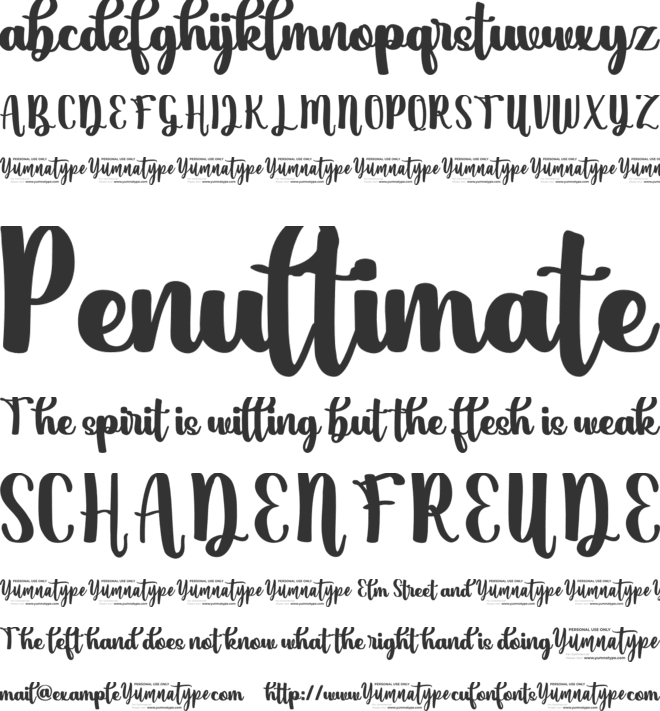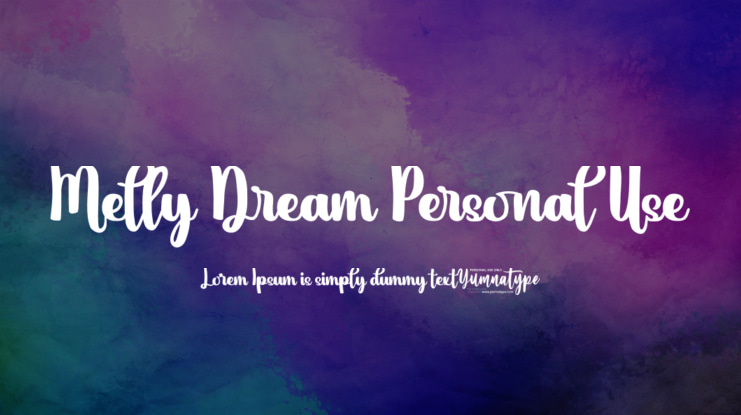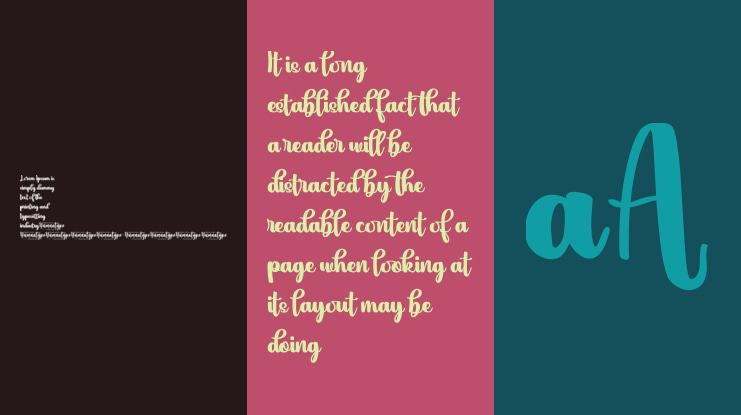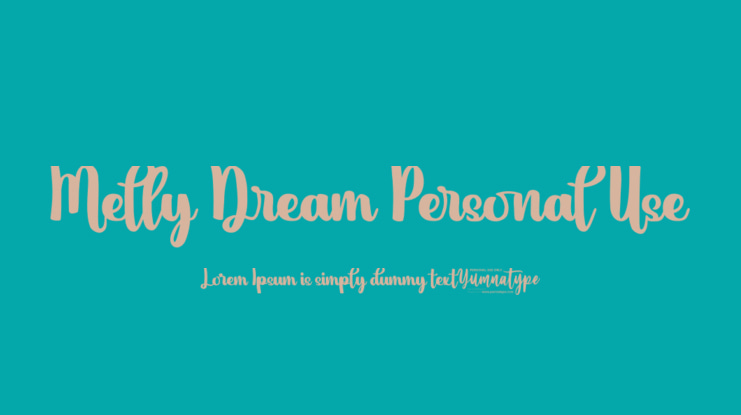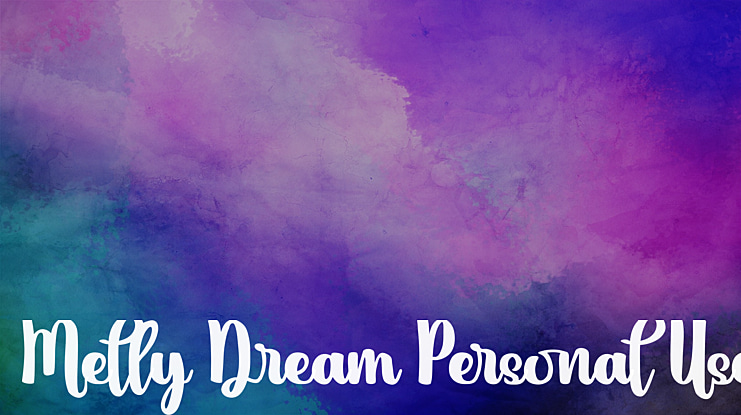
Melly Dream Personal Use Font
Melly Dream is a beautiful handwritten font. Made for any professional project branding. It is the best for logos,branding and quotes. Every letter has a unique and beautiful touch.